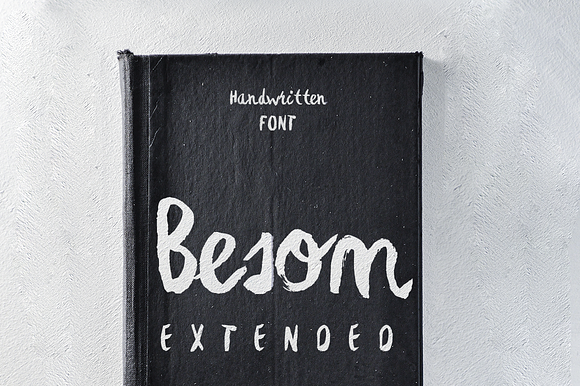
Besom Extended Brush Font
Besom Extended Brush Font is perfect for artistic branding, creative studios, handmade product labels, craft workshop materials, bohemian fashion brands, artistic portfolios, expressive social media graphics, custom calligraphy projects, artisan packaging design, creative business cards, intimate greeting cards, and authentic handcrafted communications.
What makes Besom Extended Brush Font exciting is its artistic authenticity that captures the raw energy and expressive freedom of traditional brush painting through extended letterforms that flow with natural rhythm and creative spontaneity. This captivating typeface embodies the soul of artistic expression and handcrafted authenticity, combining organic brush strokes with extended proportions that create dramatic impact while resonating with audiences seeking genuine creativity and personal artistic touch. The font's extended character and natural variations provide maximum visual presence while maintaining the readability essential for commercial applications that demand both artistry and functionality. Its expressive personality makes it perfect for brands that want to communicate creativity, authenticity, and the irreplaceable value of human artistic expression.
The Besom Extended Brush Font family includes regular and bold weights, featuring extended brush alternates, flowing ligatures, and artistic flourishes. The character set incorporates expressive numerals, painterly punctuation marks, and creative swashes that enhance the font's artistic character and provide designers with comprehensive brush typography solutions for authentic brand expressions with extended visual impact.
Whether you're creating artistic brand identities, designing handcrafted marketing materials, or developing expressive communications, Besom Extended Brush Font Free Download provides the extended artistic authenticity your creative projects require. This premium brush font excels in applications where personal expression and creative differentiation are crucial for brand positioning and emotional engagement with art-conscious audiences seeking genuine handmade experiences. The font's extended brush qualities work beautifully across packaging, signage, and digital applications, making it an essential tool for designers creating memorable artistic brand experiences with maximum visual impact. Creative businesses and artistic entrepreneurs choose this font for its ability to communicate authentic craftsmanship while maintaining professional appeal and commercial viability in competitive creative markets. The comprehensive character support includes international symbols, expanding its versatility for global artistic applications and multilingual expressive communications. Professional designers appreciate its perfect balance of extended artistic expression and functional readability, ensuring projects remain both emotionally compelling and practically effective for diverse creative audiences. When you incorporate this exceptional extended brush font into your artistic communications, you're selecting a typography solution that celebrates handcrafted heritage and creative passion, ensuring your brand connects with audiences seeking authentic artistic experiences and extended visual impact while maintaining the creative credibility essential for success in artistic industries and handmade markets that value individual expression, traditional craftsmanship, and the extended beauty of authentic brush artistry.